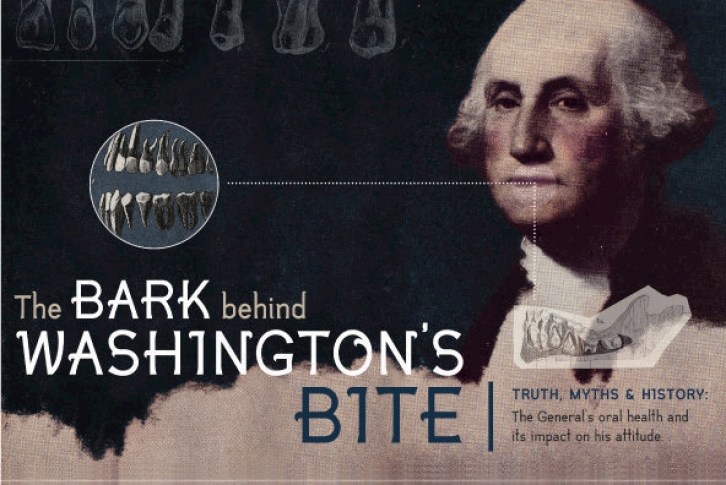
Pinion Display is a modern decorative typeface that features an assembly line approach to the character design. Each glyph is constructed from a library of parts. The result is an ornamental typeface with modern simplicity and a bit of historic charm. Features of Pinion Display include; European language support small caps, plain caps, ligatures, tabular figures, ordinals, numerators, denominators, and fractions, contexual alternates and stylistic alternates.